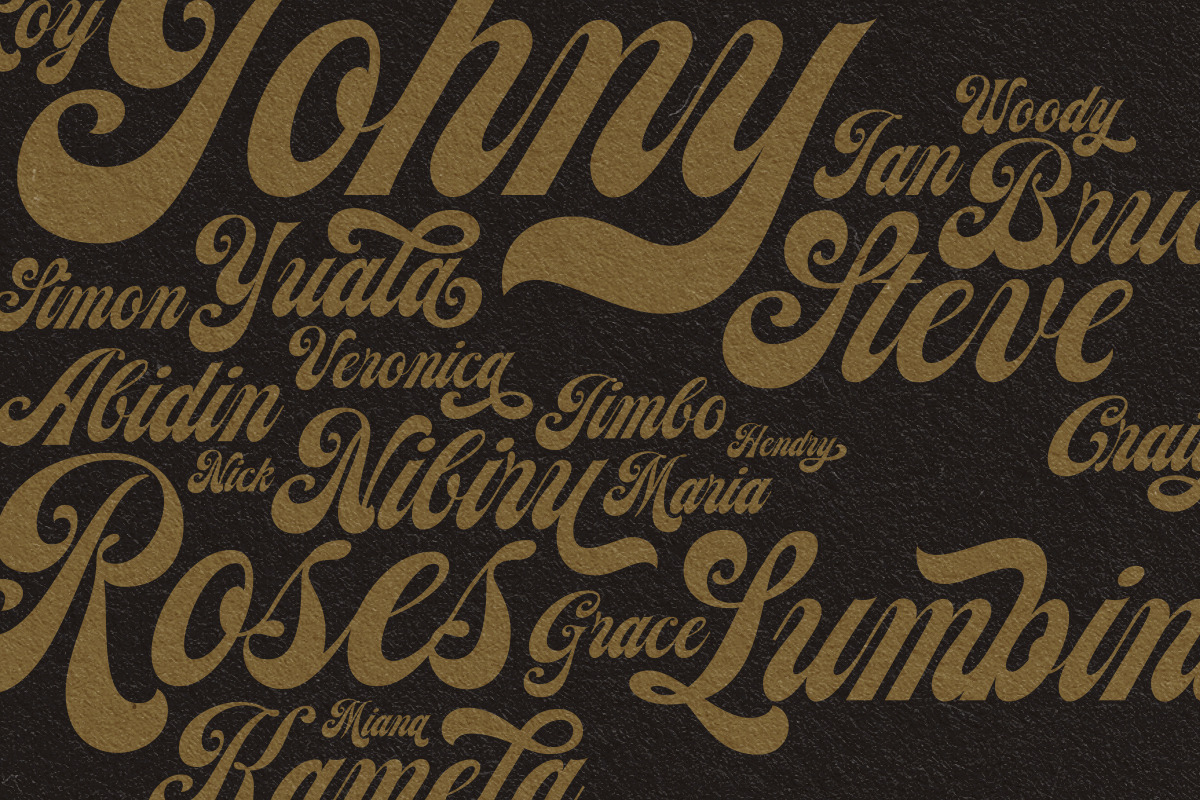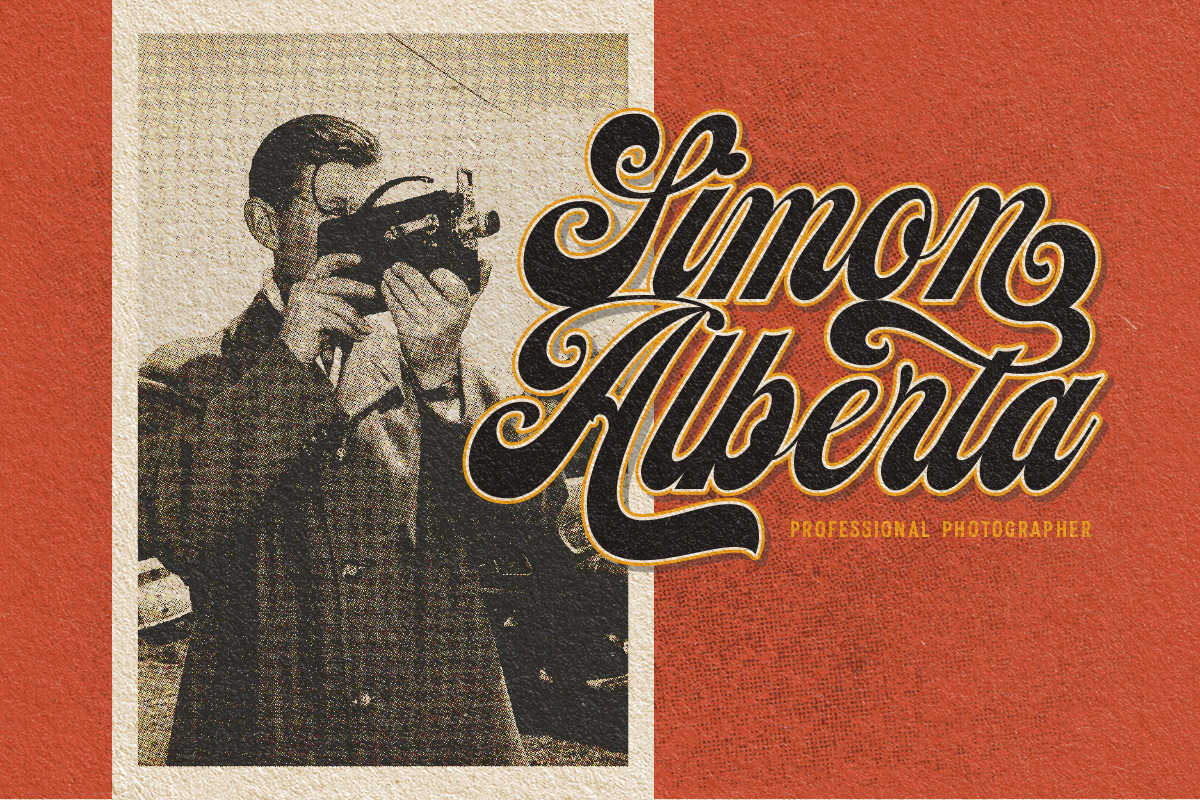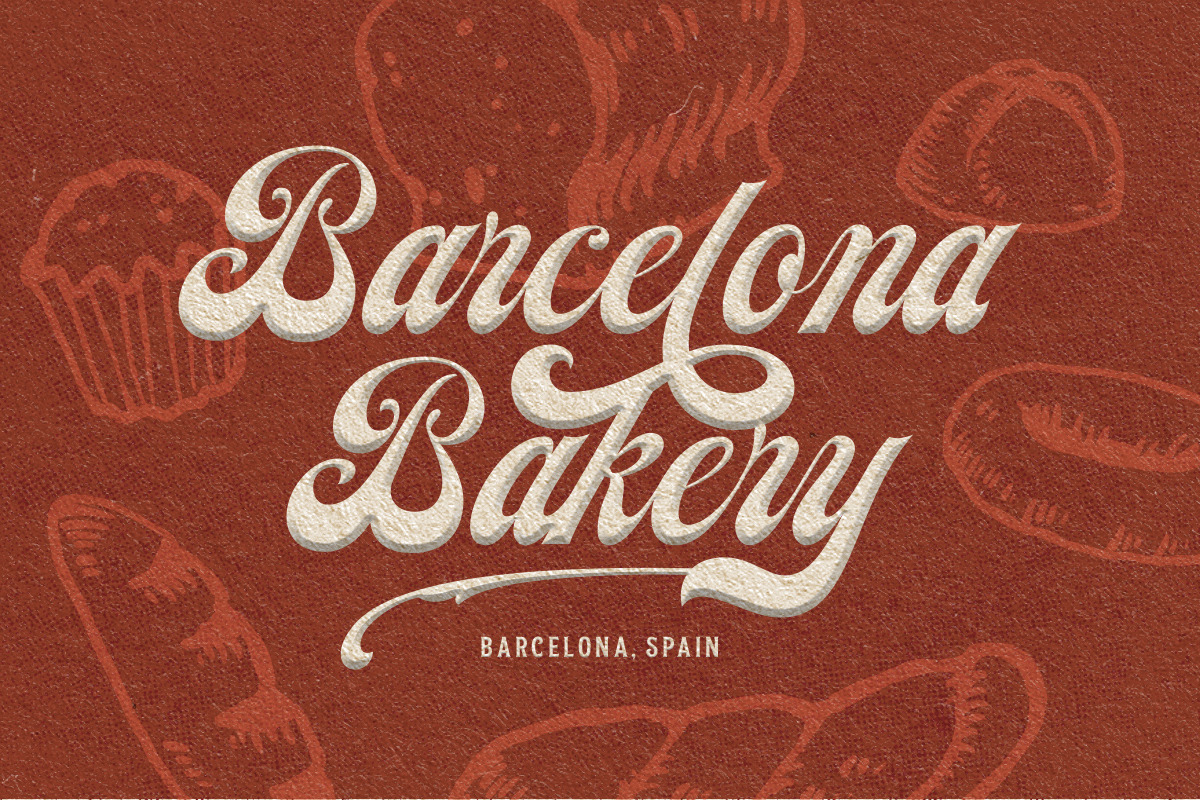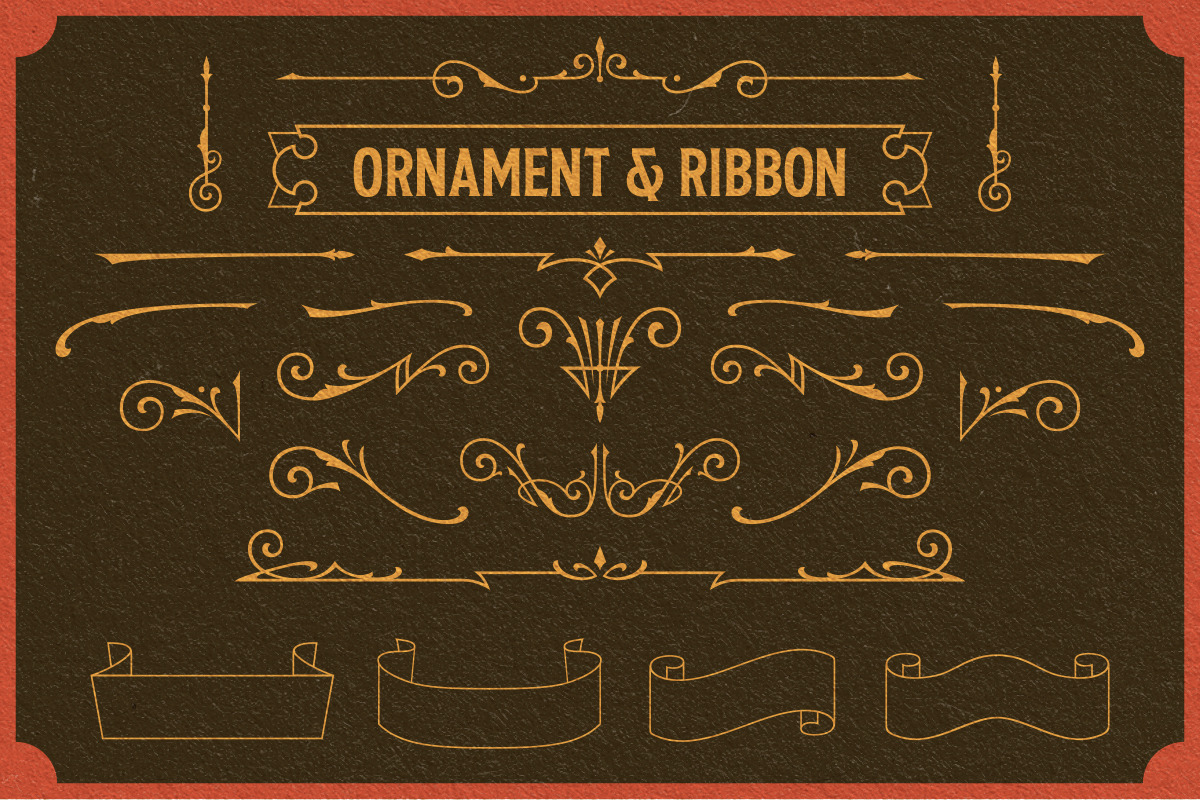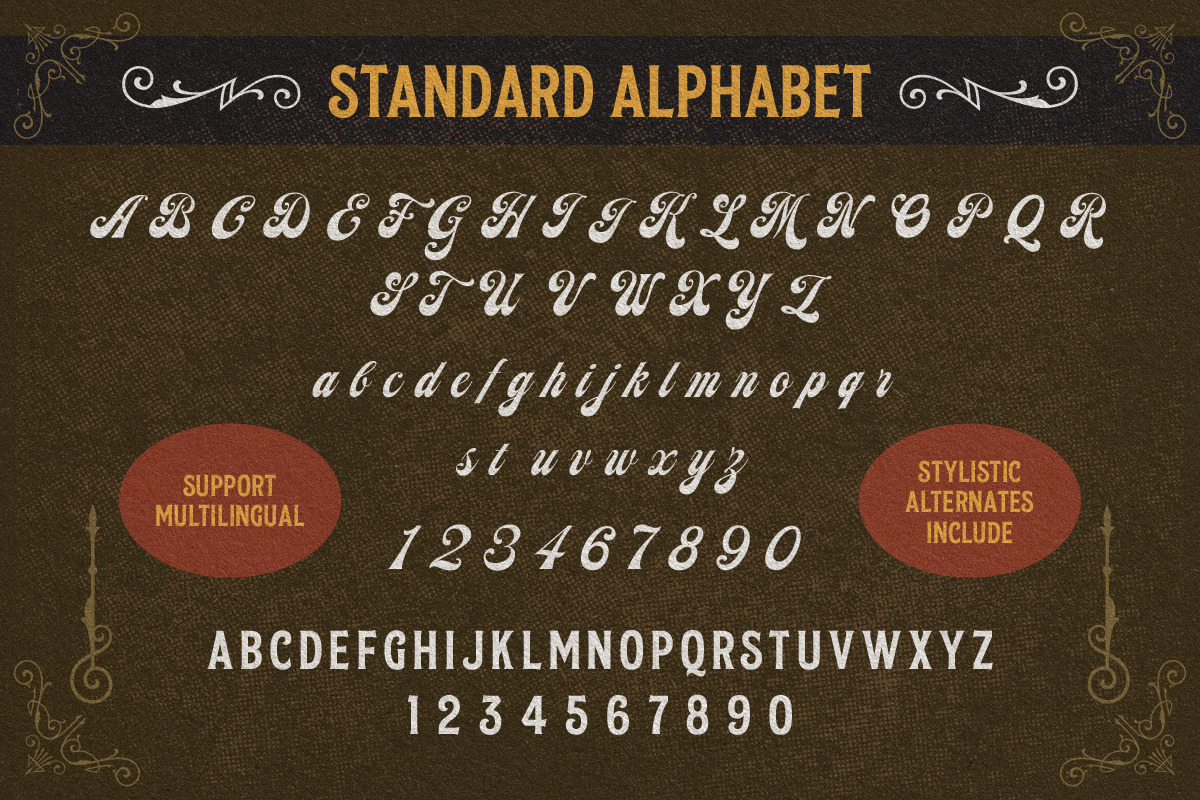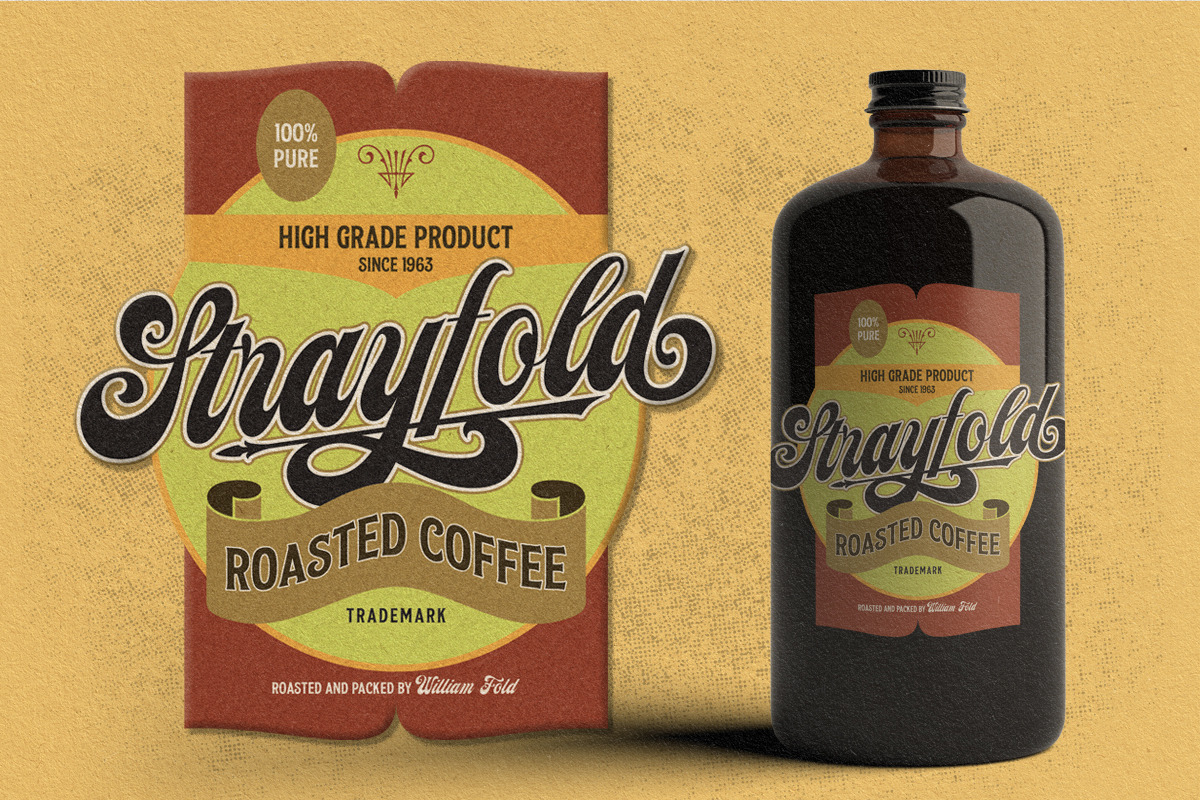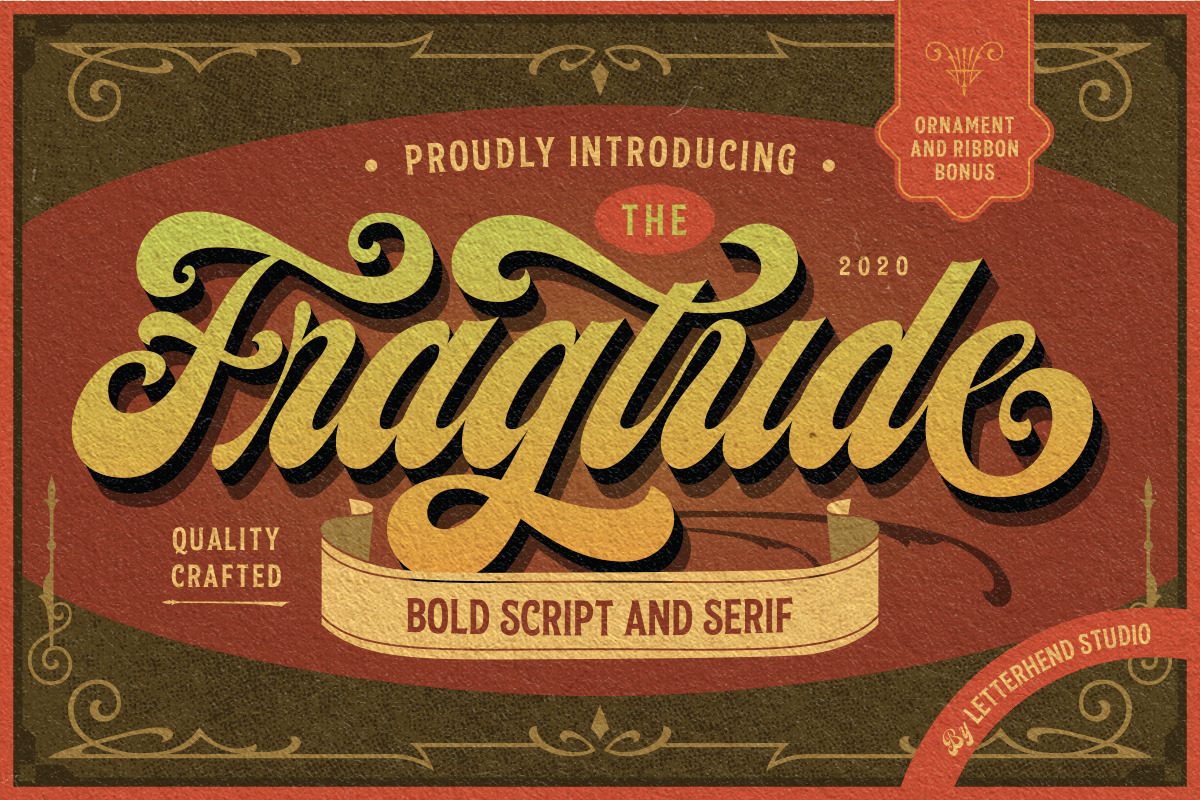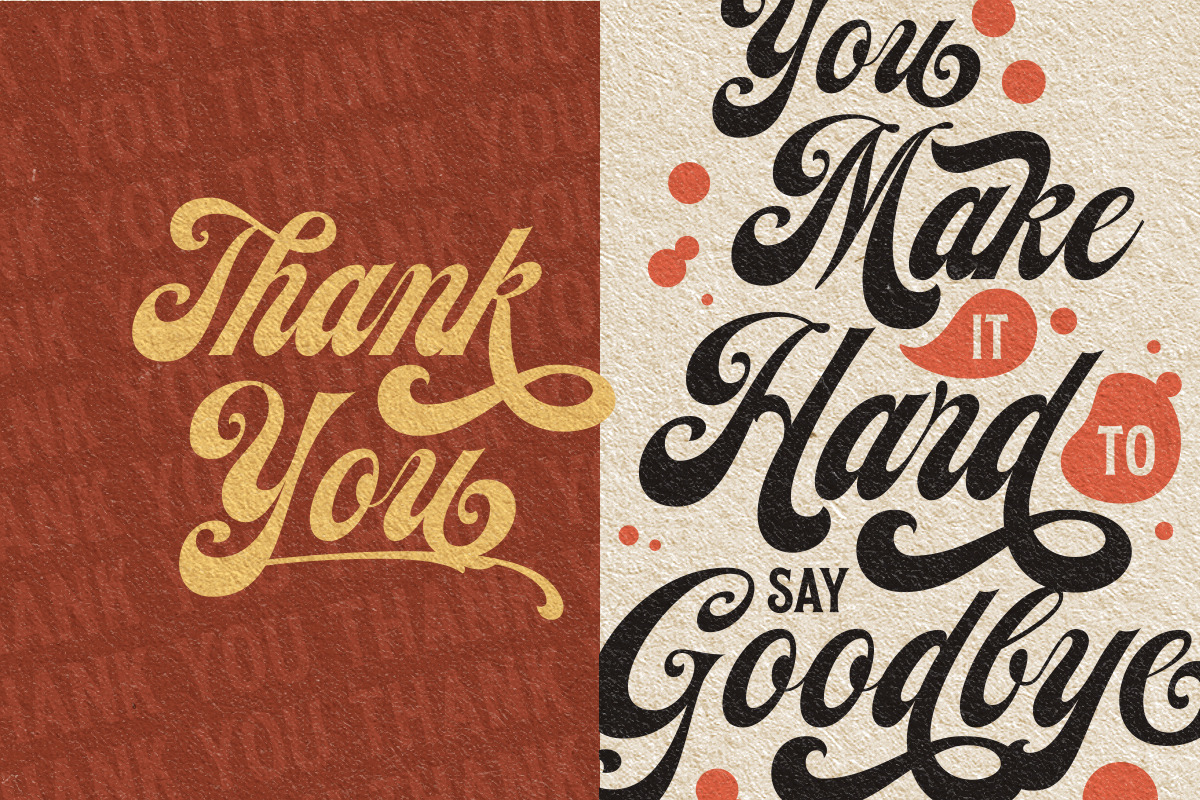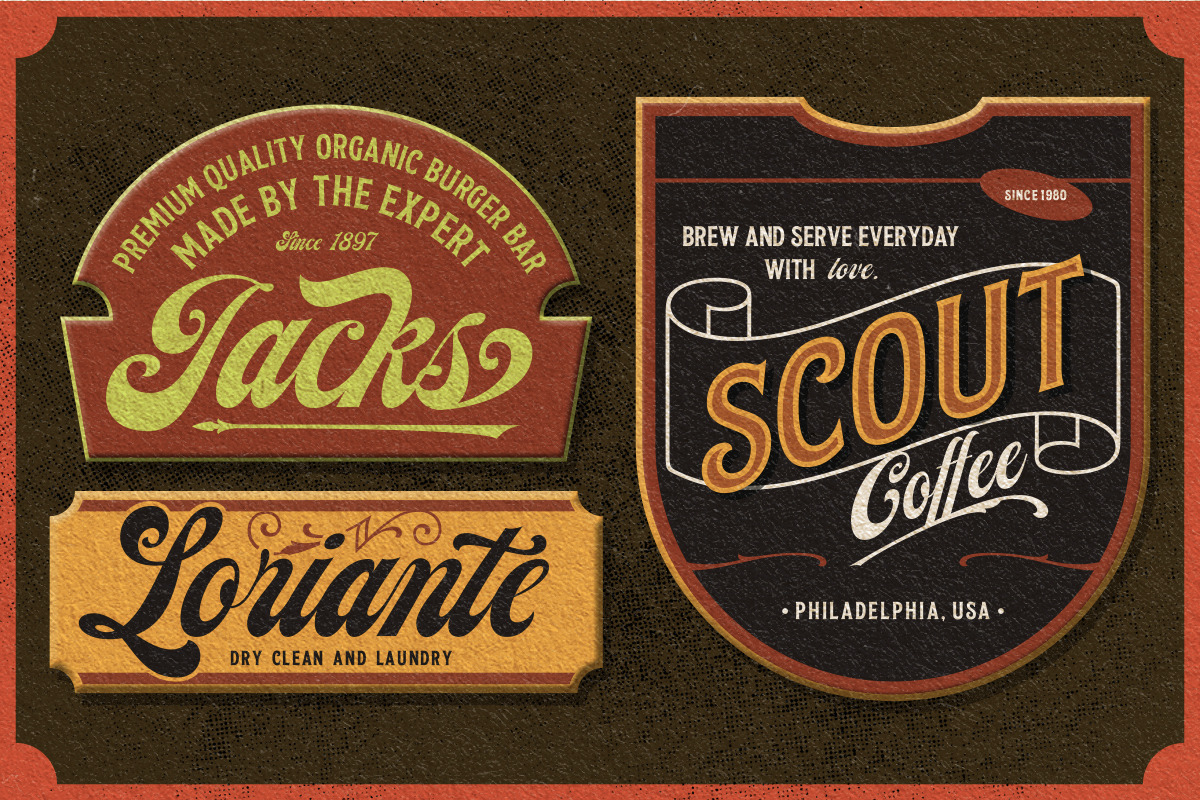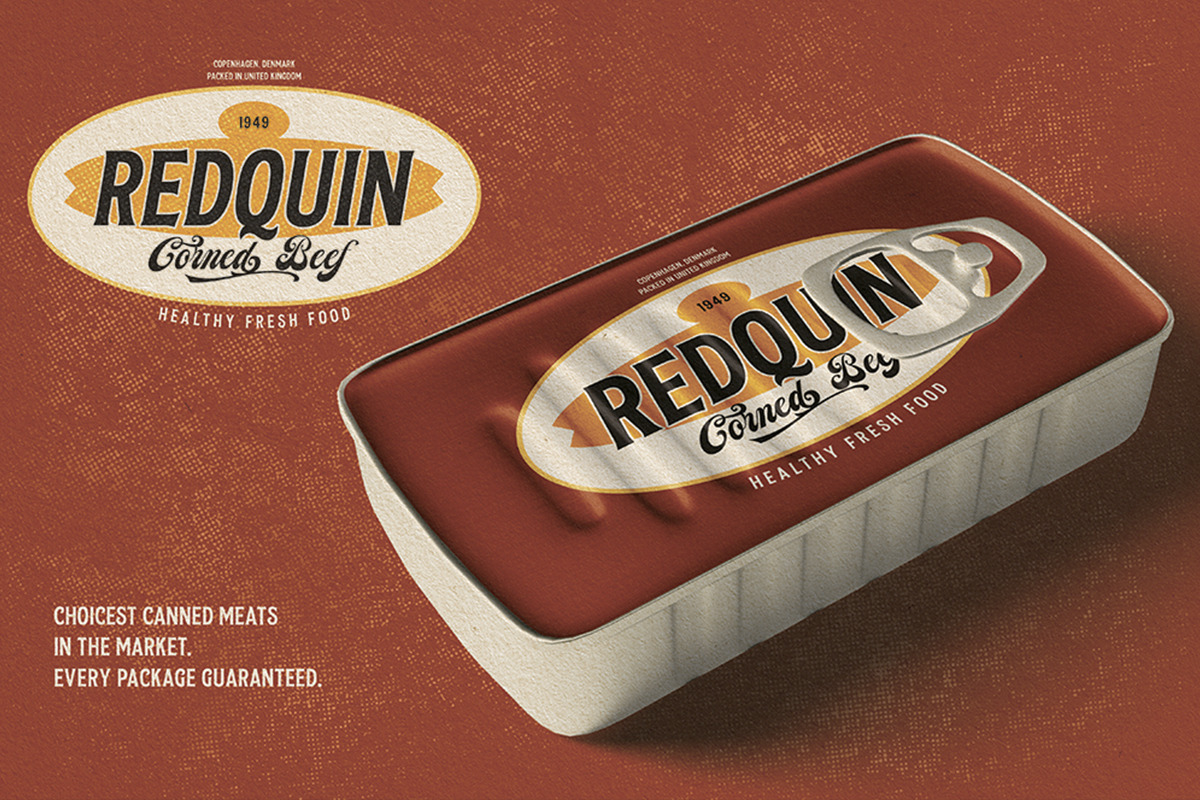
Fragtude - Vintage Display Typeface
"Old is Gold".. Perhaps that's the best words to represent this typeface called Fragtude - a pair of vintage display typeface consist of bold script and serif. One of our finest typeface, crafted carefully to make sure its quality. Inspired by 40s 50s lettering and signage, the nostalgic feels will bring you back to the good ol' days.. What makes this item even more special is you will get free bonus ornaments and ribbons in vector format!
- swash and ligatures
- alternates